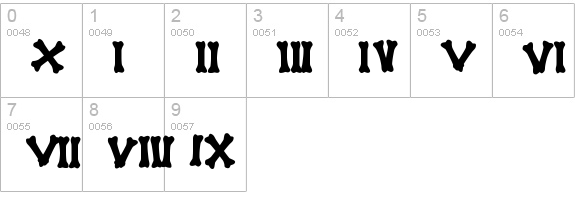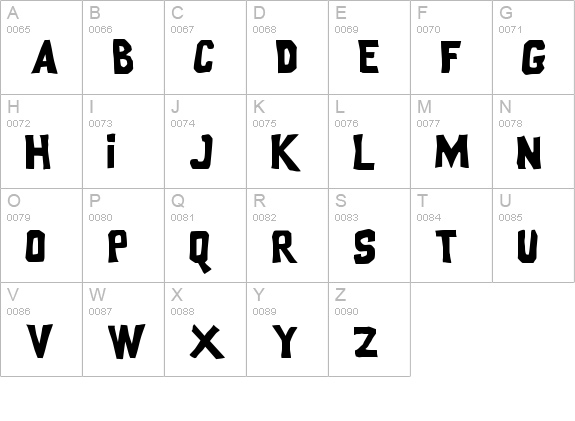
Goonies Font Details
The Goonies font is a charming and playful typeface that brings a sense of adventure and nostalgia to any design project. Inspired by the classic 1980s film, this font captures the spirit of youthful exploration and camaraderie. With its bold and whimsical letterforms, Goonies is perfect for adding a touch of fun to posters, invitations, branding, and more. Best of all, the Goonies font is available for free download at FontsMarket.com. Whether you're a fan of the movie or simply looking for a unique and eye-catching font, Goonies is sure to bring a sense of excitement and creativity to your designs. Download it today and let your imagination run wild with this delightful typeface.